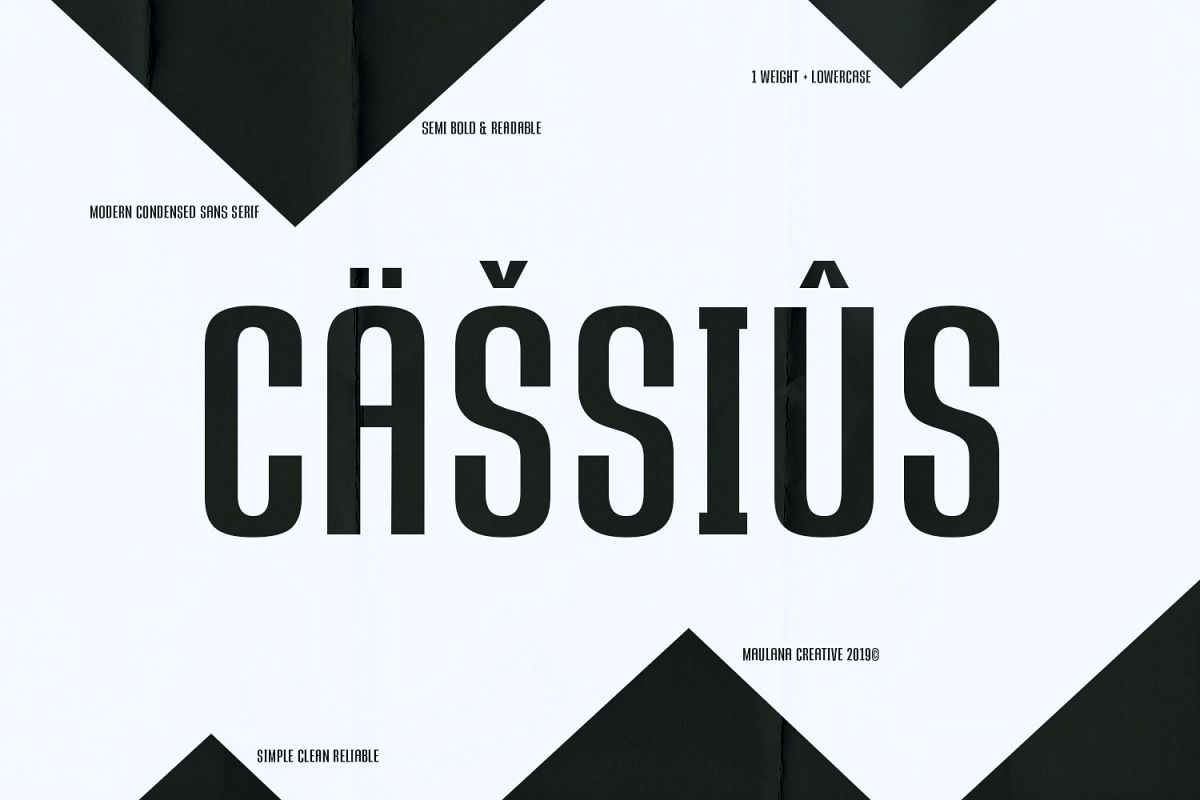
Cassius Sans Font is a Bold sans serif. CASSIUS Sans Font is perfectly suited to branding, logos, magazines, films, website, headlines, titles, captions, games, apps, posters, t-shirts and more.This font available: